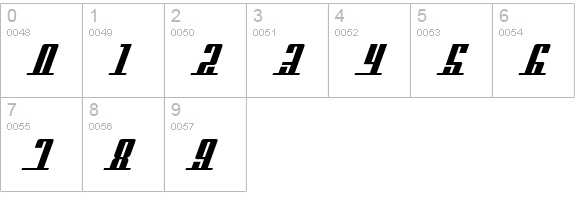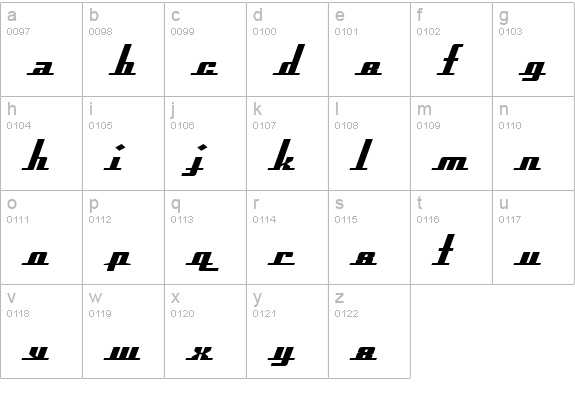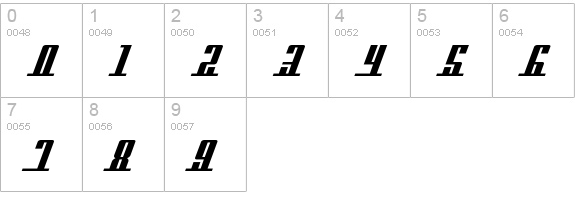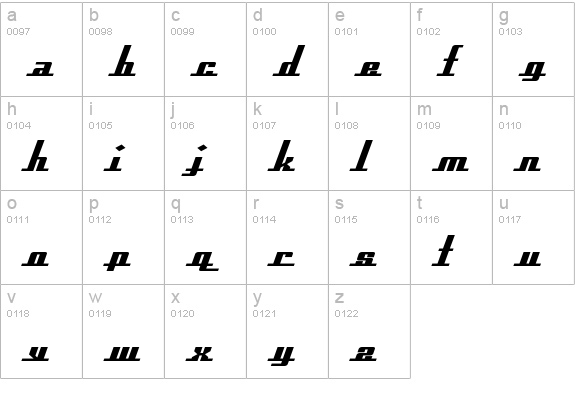
SF Americana Dreams Extended Bold Font Details
SF Americana Dreams Extended Bold is a strong, high-contrast, extended-width variant in the SF typeface family \xE2\x80\x94 well suited to headlines, attention-grabbing titles, and strong calls-to-action.
Introducing SF Americana Dreams Extended Bold Font, a stunning typeface that beautifully combines the essence of Americana with a touch of modernity. This font is the epitome of boldness, making a strong statement with its powerful and commanding presence. With its extended letterforms and striking weight, SF Americana Dreams Extended Bold Font exudes confidence and strength, making it the perfect choice for eye-catching headlines, impactful logos, and memorable branding projects. Its unique design captures the spirit of the American dream, evoking a sense of nostalgia and patriotism. What sets SF Americana Dreams Extended Bold Font apart is not only its captivating appearance but also its versatility. It seamlessly adapts to various design contexts, from vintage-inspired projects to contemporary graphic design. Its bold and expressive nature ensures that your message will be conveyed with utmost impact and clarity. One of the best aspects of SF Americana Dreams Extended Bold Font is that it is freely available to download at FontsMarket.com. This means that you can easily access and use this exceptional typeface for your personal and commercial projects without any limitations. Its availability in the digital realm allows for seamless integration into your design workflow, saving you time and effort. Embrace the spirit of Americana and unleash your creativity with SF Americana Dreams Extended Bold Font. Its captivating aesthetic and powerful demeanor will undoubtedly elevate your designs to new heights. Download this remarkable typeface today from FontsMarket.com and embark on a typographic journey that pays homage to the American dream.